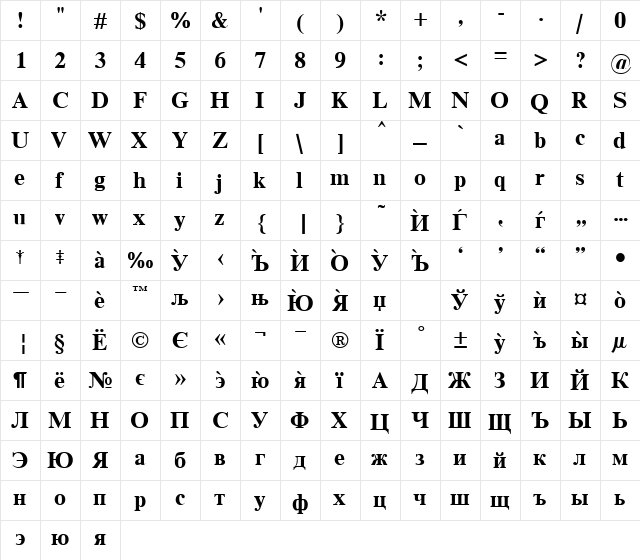
TmsStrokA Bold
Design Context for TmsStrokA Typeface
TmsStrokA takes a measured approach to typography — its balanced proportions and neutral character make it a reliable workhorse for both digital and print work. Its bold stroke weight gives it real presence on the page.